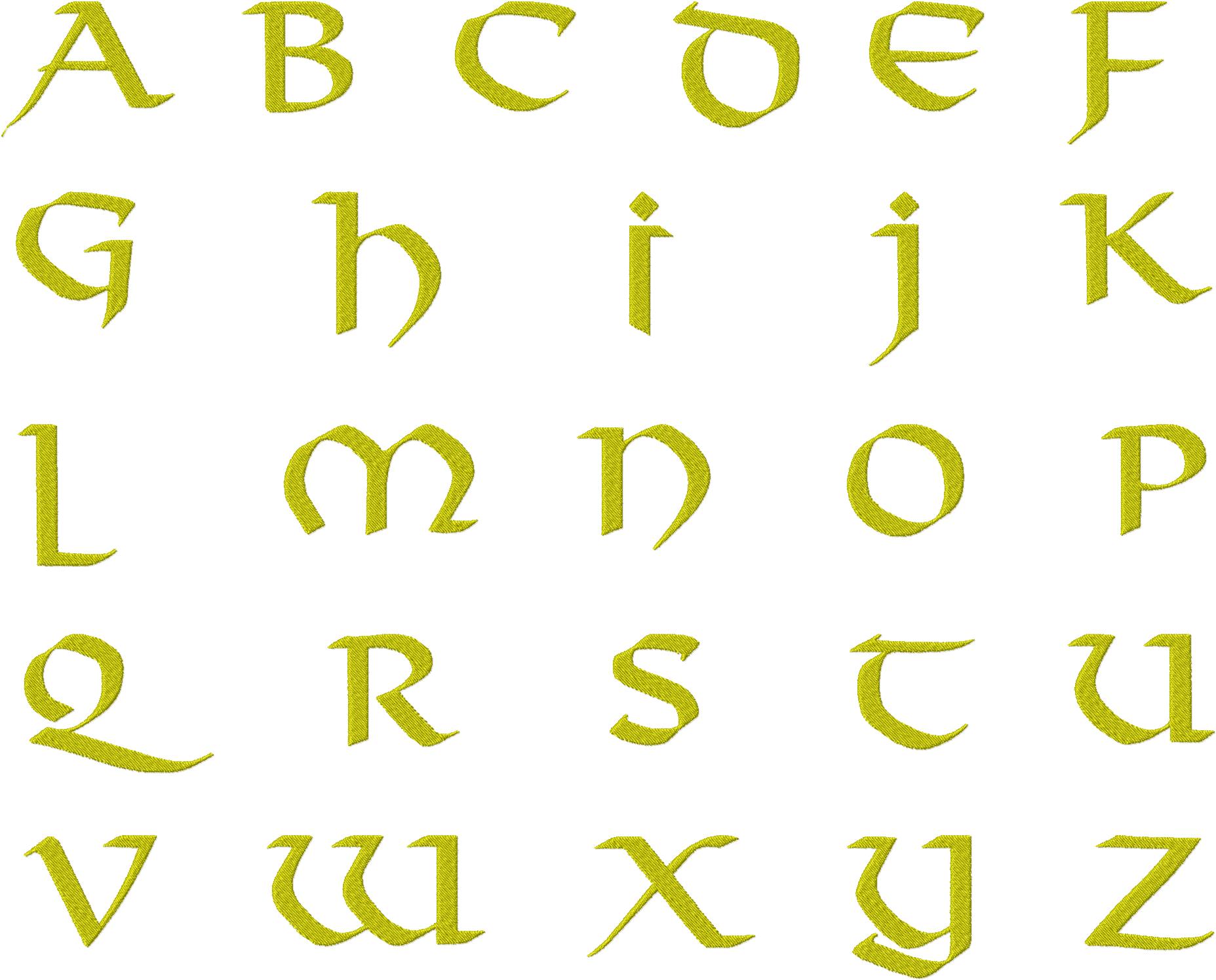
Viking ExampleStitch out this strong font to give any monogramming project a touch of fun. Download the True Viking Machine Embroidery Font Set for Gold Members only.
Viking Font Together